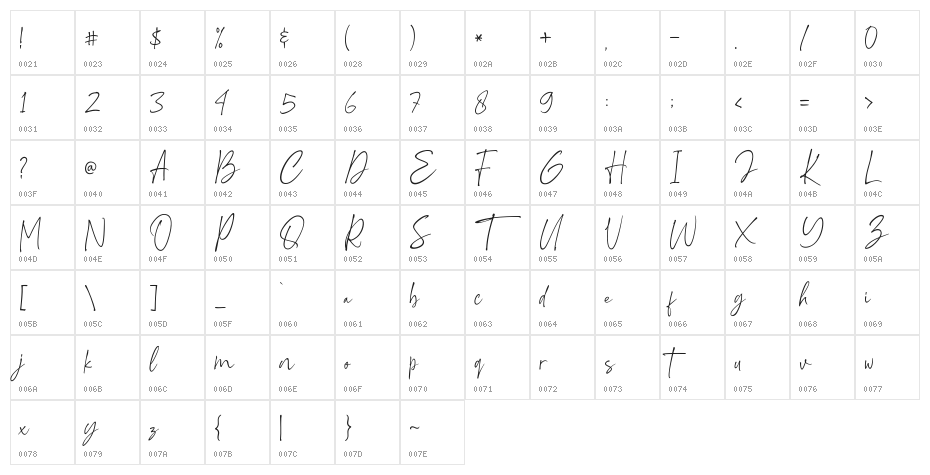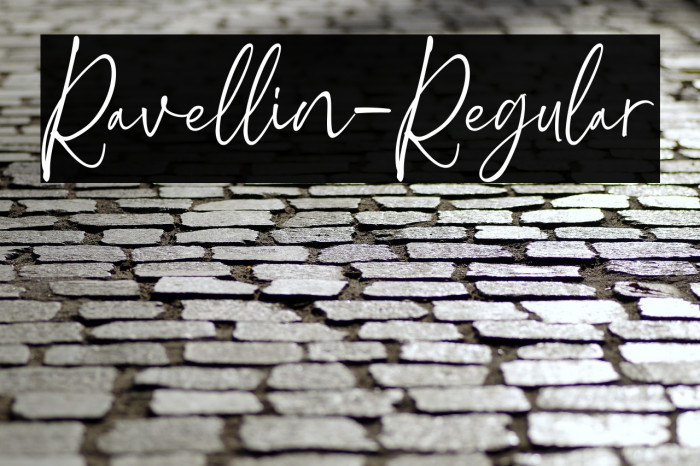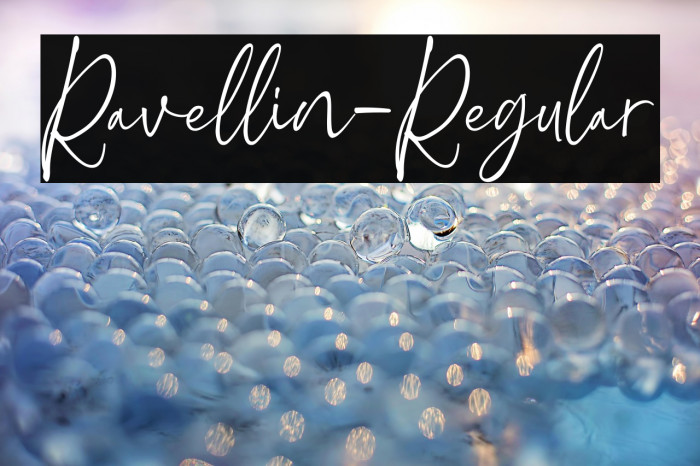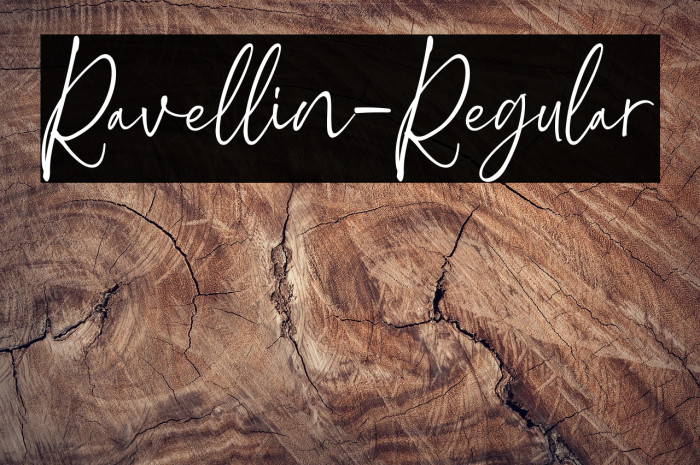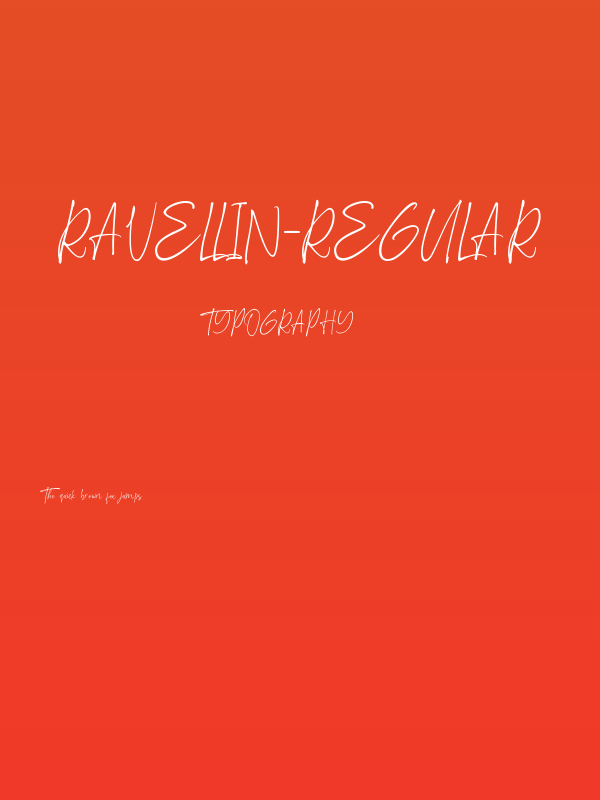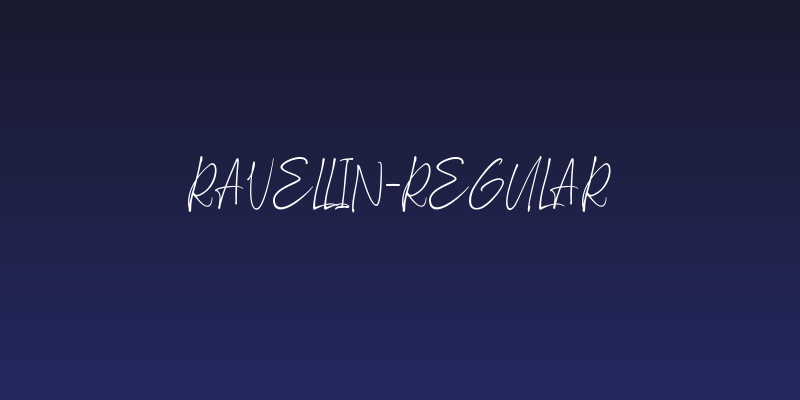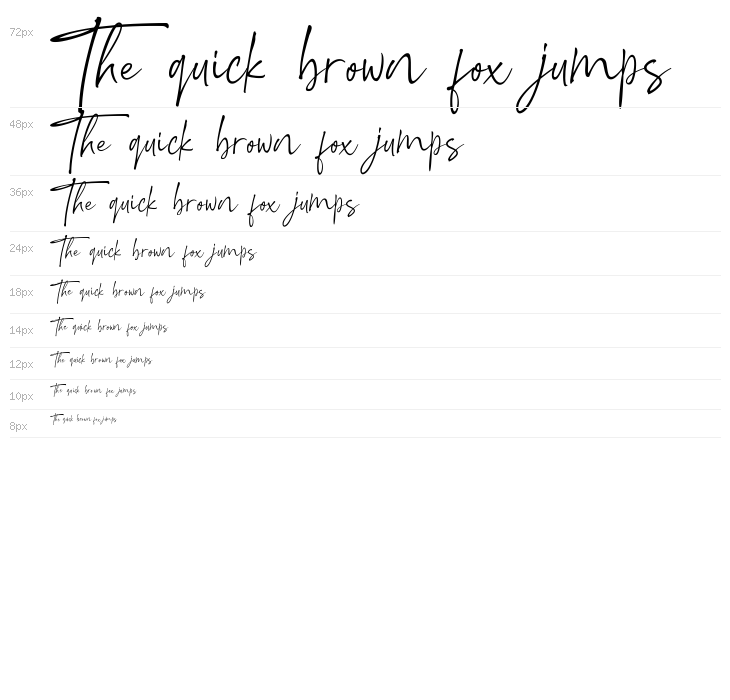
Ravellin-Regular Font
Ravellin-Regular Description
This font features a lively and expressive handwritten style, characterized by fluid and dynamic strokes that convey a sense of movement and personality. The uppercase letters are tall and slender, with a slight slant that adds to the casual elegance of the design. The lowercase letters maintain a consistent flow, with loops and curves that enhance the handwritten aesthetic. The numerals are clear and legible, matching the overall style with their playful yet sophisticated appearance. Special characters are seamlessly integrated, maintaining the font's cohesive look. This font is perfect for projects that require a personal touch, such as invitations, greeting cards, or branding materials.
| Proposed Projects | Ideal for invitations, greeting cards, branding, and personal projects. |